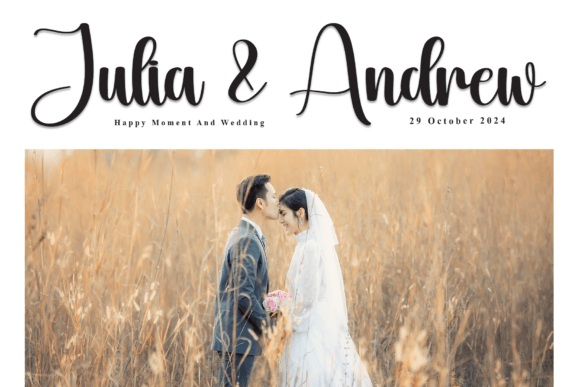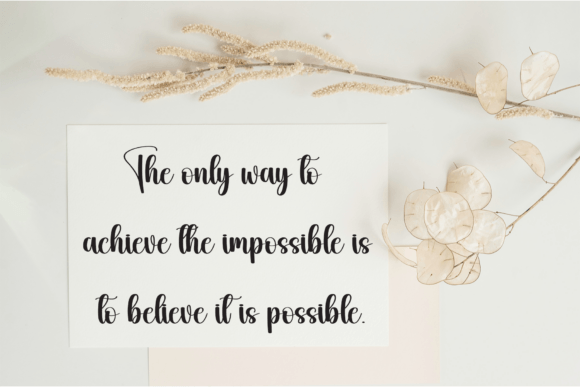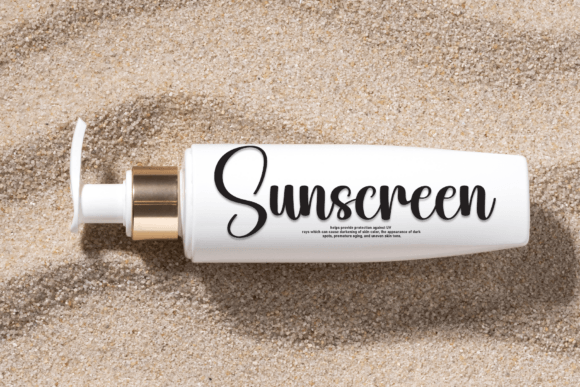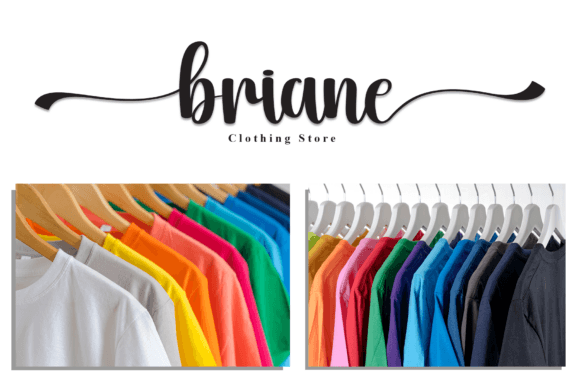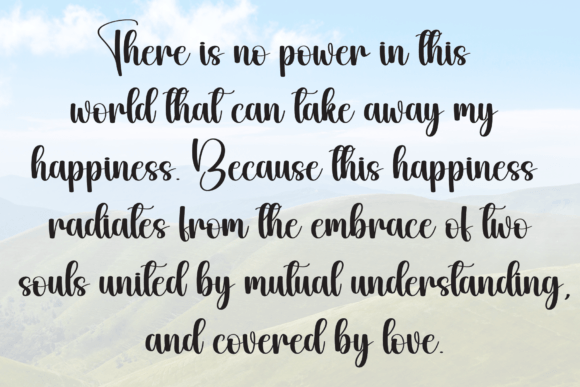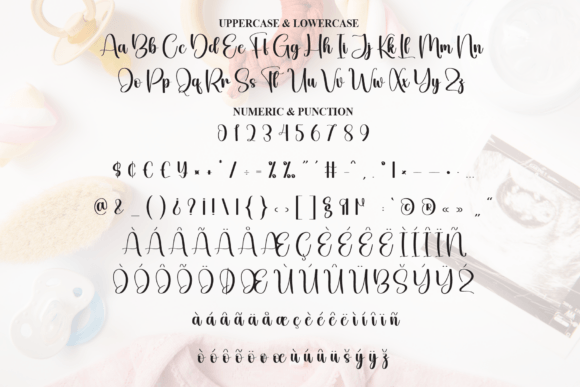
Meet Your New Design BFF: Baby Sample Font
Have you ever stared at a blank page, waiting for inspiration to strike? You’re not alone. For designers, those moments of creative block can be frustrating, but also a chance to discover something new and exciting. And that’s exactly what happened when I stumbled upon the Baby Sample Font. Its elegant, handwritten script caught my eye, and I knew I had to learn more.
Designed to add a personal touch to any design, the Baby Sample Font is a versatile tool for creatives. With its fluid strokes and natural flow, it brings a sense of warmth and sophistication to invitations, branding, and social media graphics. Whether you’re a seasoned pro or just starting out, this font is a valuable addition to your design arsenal.
Baby Sample Font Key Features
- Font Family: Baby Sample Font is a unique, handwritten font designed for creative projects, available in various font formats including TrueType (TTF), OpenType (OTF), and Web Font (WOFF).
- Character Set: The font includes a wide range of characters, including uppercase and lowercase letters, numbers, punctuation marks, and special characters.
- Unique Characteristics: Baby Sample Font features a playful, cursive design with irregular strokes and flourishes, making it perfect for creating a whimsical and childlike atmosphere in designs.
- Language Support: The font supports a wide range of languages, including English, Spanish, French, German, Italian, Portuguese, and many others.
Baby Sample Font Review
Overall, I found the Baby Sample Font to be a cute and playful font that would work well for a nursery or children’s theme. ✨ The font’s rounded edges and simple design make it easy to read and use for short text phrases. I particularly enjoyed the way the font handles the letter “o”, which is often a challenging character to design. ✨
However, I did find a few limitations to the font. ⚠️ The font lacks a bold weight, which can make it difficult to use for headings or titles. Additionally, the font’s x-height is a bit inconsistent, which can affect the readability of longer text blocks. ⚠️
Here are some specific pros and cons of the font:
- ✨ Cute and playful design
- ✨ Easy to read and use for short text phrases
- ✨ Handles the letter “o” well
- ⚠️ Lacks a bold weight
- ⚠️ Inconsistent x-height
In terms of overall impression, I think the Baby Sample Font is a great choice for a specific use case, such as a nursery or children’s theme. However, it may not be the best choice for a more general-purpose font due to its limitations.
Some common use cases for Baby Sample Font include:
- Creating playful and whimsical designs for children’s products or services.
- Designing invitations, greeting cards, or party decorations for baby showers or children’s birthdays.
- Adding a touch of nostalgia or retro charm to your designs.
Q: What is the character set of the Baby Sample Font?
The Baby Sample Font includes a comprehensive character set that supports multiple languages, including Latin, Cyrillic, and Greek scripts. The font also includes a range of punctuation and symbol characters, making it suitable for use in various languages and applications.